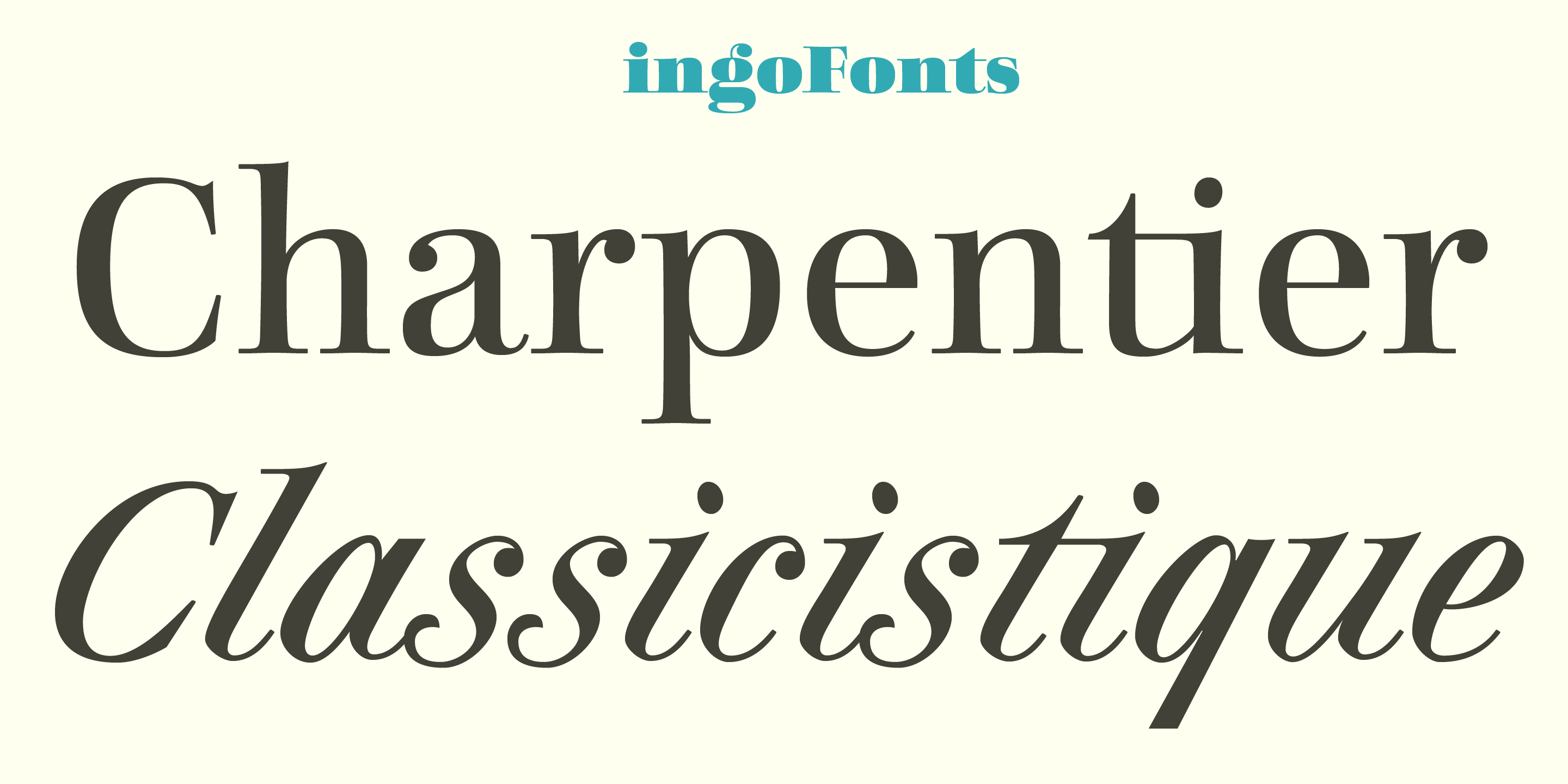
Charpentier Classicistique Pro Font is a distinguished serif typeface that embodies French classical tradition and architectural elegance for prestigious design applications. This font is available for commercial use and must be purchased for business applications. You can download it for free for testing purposes only.
Charpentier Classicistique Pro Font excels in numerous design applications including luxury hotel branding, fine art publications, classical music programs, architectural presentations, cultural institution communications, premium wine labels, elegant invitations, scholarly journals, historical documentations, and aristocratic event materials. Its classical character makes it perfect for organizations requiring European sophistication and cultural heritage in their communications.
What makes Charpentier Classicistique Pro Font so exciting is its perfect embodiment of French neoclassical principles and architectural precision, featuring refined serif details, harmonious proportions, and scholarly elegance that creates immediate recognition of cultural authority while maintaining exceptional readability. The font's classical aesthetic conveys tradition and sophistication, making it ideal for institutions seeking to establish European prestige and cultural distinction.
The Charpentier Classicistique Pro Font family includes comprehensive professional variations: Light, Regular, Medium, Bold, Black, and their corresponding italic versions, plus small caps and expert character sets with French classical refinements. Each family member maintains consistent neoclassical relationships while offering different levels of emphasis, providing designers with extensive typographic flexibility for sophisticated cultural communications.
This exceptional typeface represents the perfect preservation of French typographic craftsmanship with contemporary professional applications, making Charpentier Classicistique Pro Font Free Download an invaluable resource for cultural designers. The font's neoclassical characteristics work exceptionally well in luxury and cultural contexts where European tradition, architectural beauty, and scholarly authority are paramount considerations.
Charpentier Classicistique Pro Font supports extensive European character sets including French accents, Western European languages, comprehensive classical symbols, and architectural typography elements. Its advanced OpenType features ensure professional typography standards across international cultural communications and multilingual scholarly applications worldwide.
Professional designers choose Charpentier Classicistique Pro Font for its ability to convey European cultural authority and architectural sophistication in prestigious communications. The font's neoclassical heritage makes it particularly effective for museums, cultural foundations, luxury establishments, and academic institutions where French elegance and classical appeal are essential considerations.
The font's architectural sophistication and French elegance make it particularly suitable for art museums, luxury hotels, classical music venues, cultural centers, and prestigious educational institutions. Its neoclassical appeal ensures communications maintain European distinction and scholarly credibility across changing cultural landscapes.